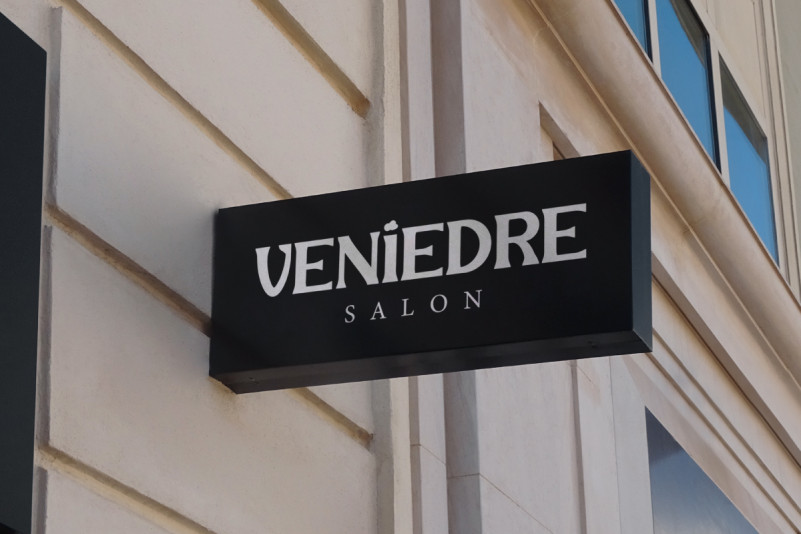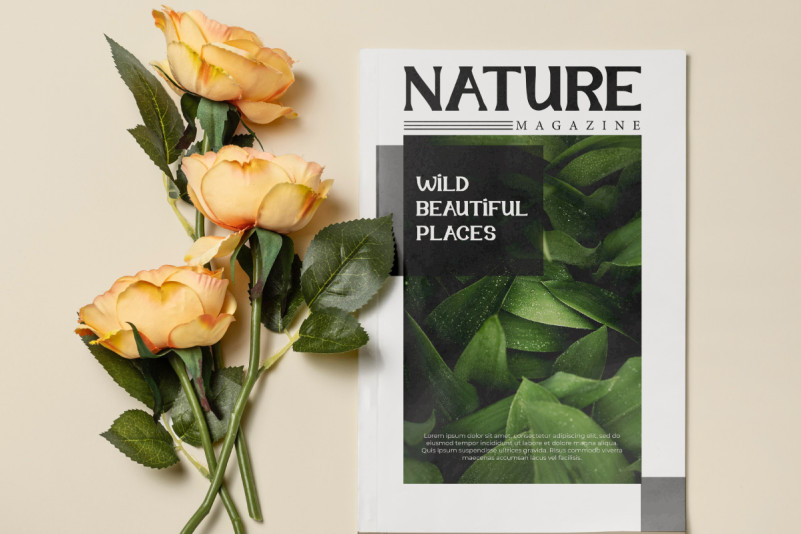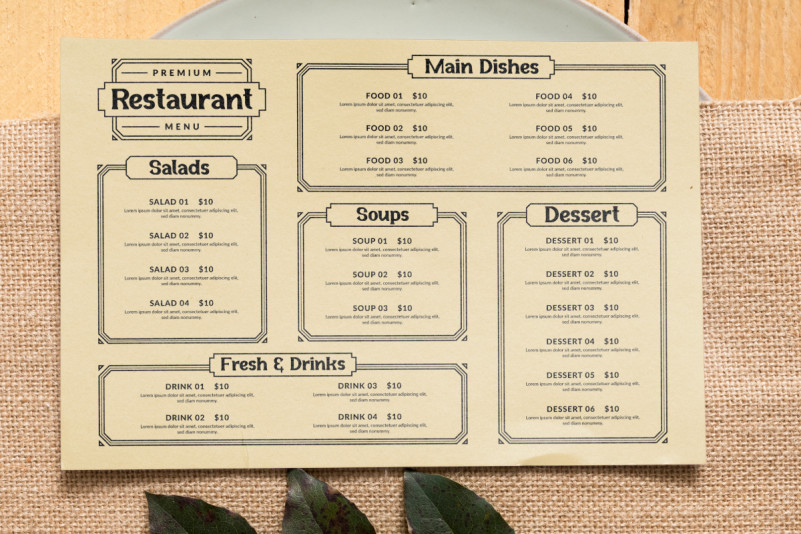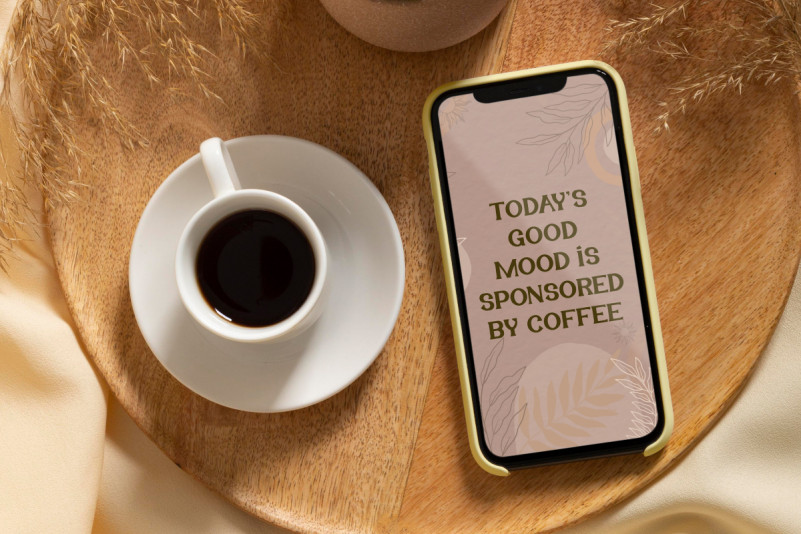
Nihiwatu Font
Nihiwatu Display Font is a unique display font with various different styles: Regular, Italic, and, that which will make your designs attractive, such as apps, brand logo, business card, custom design, cover, invitation, label, menu, poster, product packaging, quotes, screen print, signage, title, web page, etc.